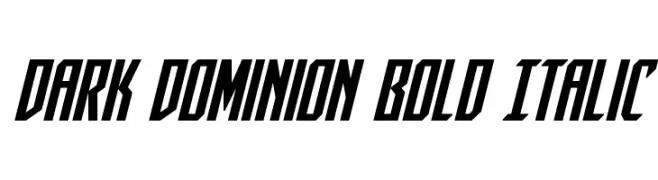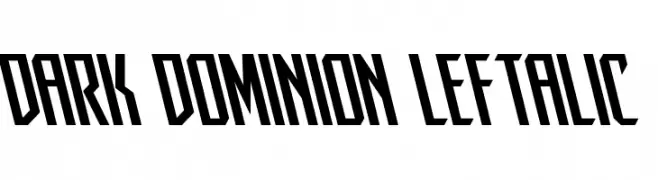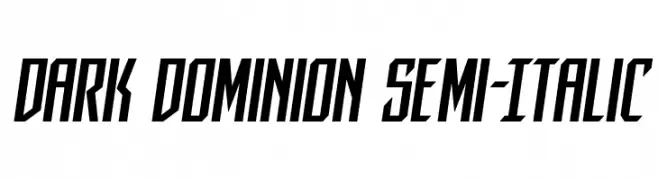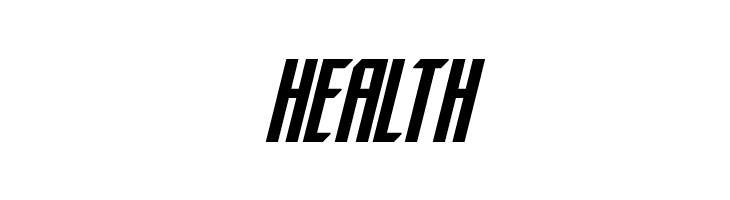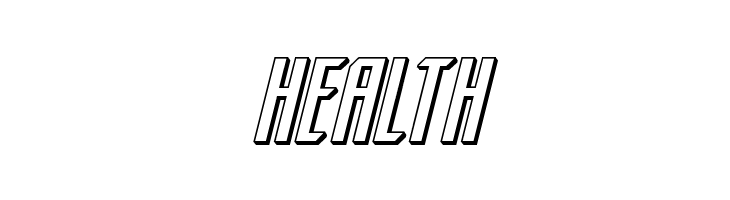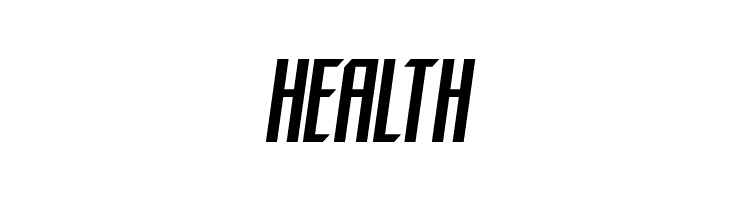
A bold, angular font with a futuristic and aggressive style.
A bold, angular font with a futuristic and edgy design.
A bold, geometric font with sharp angles and a futuristic style.
A bold, italicized font with sharp angles and a dynamic, modern style.
A bold, 3D italic font with a futuristic and dynamic style.
A bold, angular, and italicized font with a modern and dynamic style.
A bold, angular font with a leftward slant and high contrast.